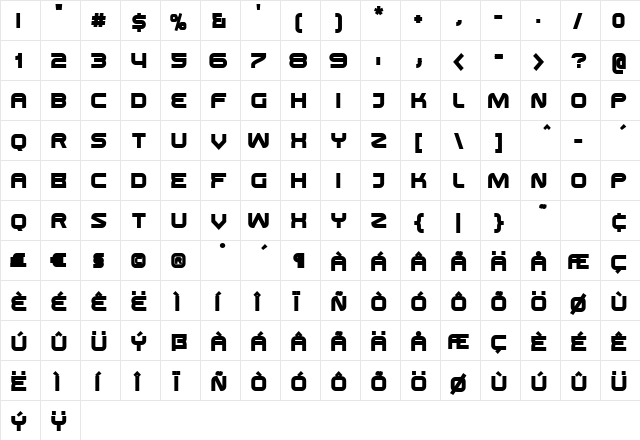
SwiszBlack Regular
Design Context for SwiszBlack Typeface
SwiszBlack is a composed and adaptable typeface that performs quietly and consistently across a wide range of design contexts.
Pro Tip: Pair SwiszBlack with a font of contrasting weight or personality to build a more expressive typographic hierarchy.